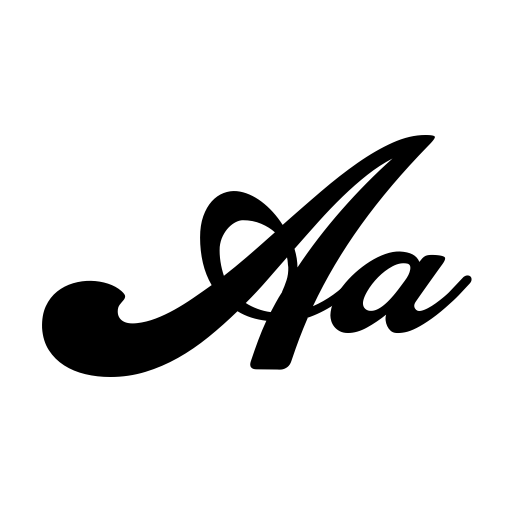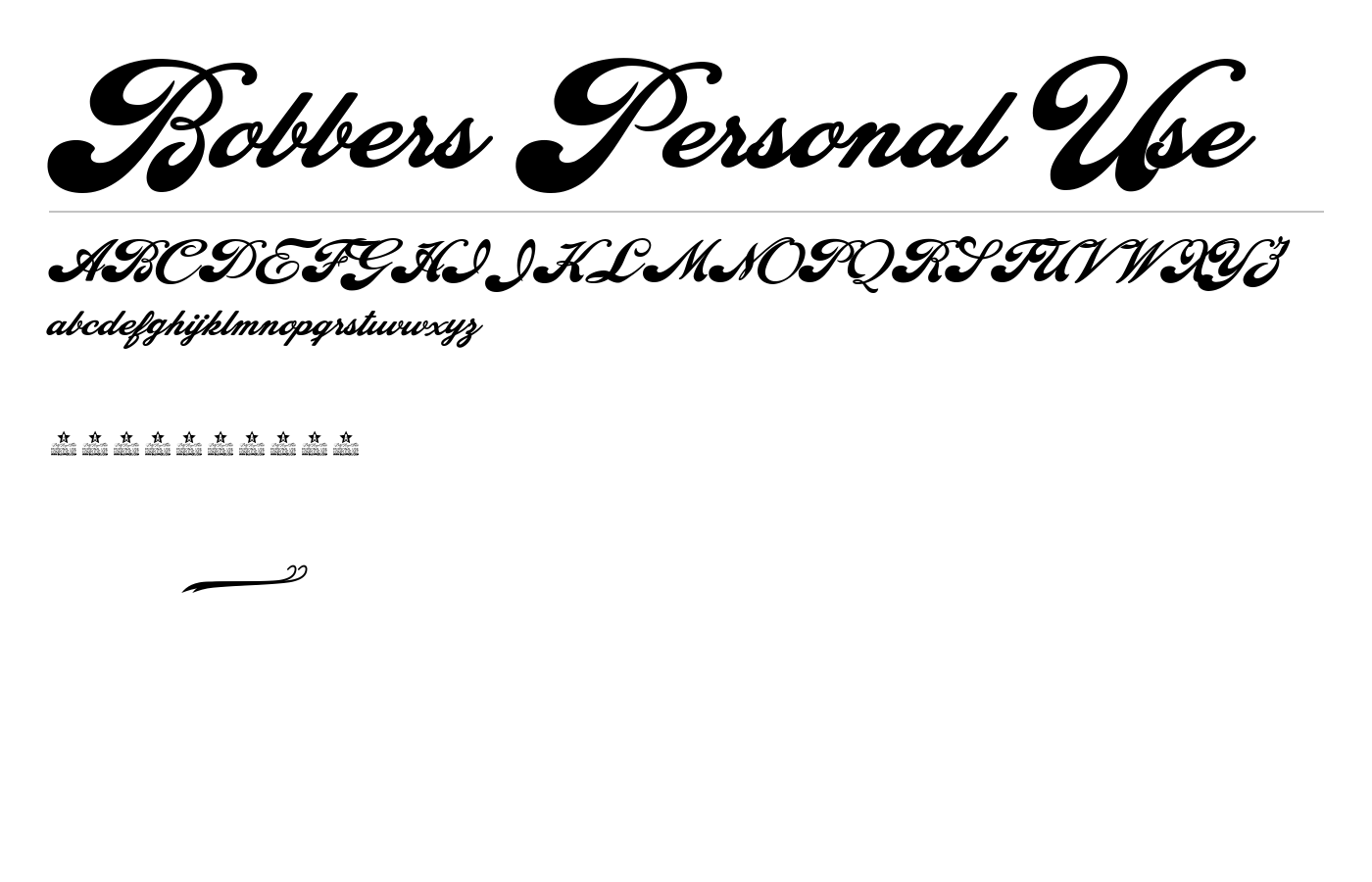
Bobbers Personal Use is a bold and elegant script font that blends classic calligraphic style with a modern touch. Its thick, flowing strokes and high contrast make it ideal for eye-catching headlines, logos, and branding where a sense of sophistication and personality is desired. This font works especially well in fashion, luxury, and creative projects that benefit from its stylish, refined appearance.
Bobbers Personal Use Font
About Bobbers Personal Use Font
| Font family | Bobbers Personal Use Font |